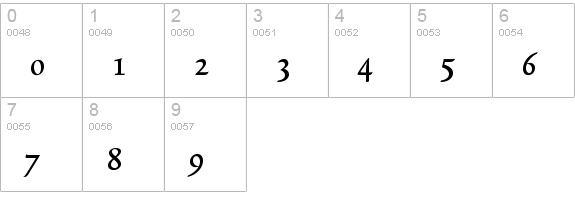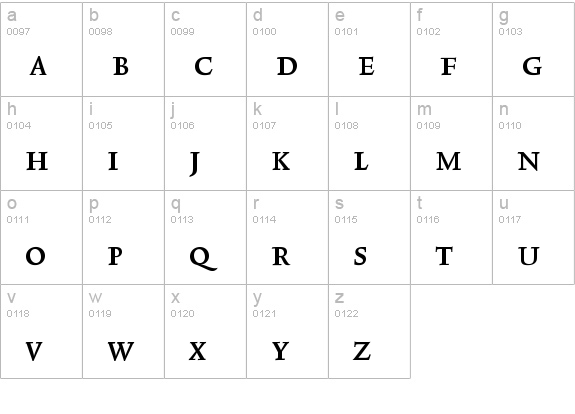
TriniteNo1-MediumCondensedExp is a sleek and modern font that is perfect for adding a touch of sophistication and elegance to any design project. This font features a condensed and slightly elongated style that exudes professionalism and refinement. With its clean lines and balanced proportions, TriniteNo1-MediumCondensedExp is versatile and can be used in a wide range of applications. Whether you're designing a logo, creating a website, or working on a print project, this font will effortlessly elevate your design to the next level. One of the standout features of TriniteNo1-MediumCondensedExp is its readability. The medium weight ensures that the characters are clear and legible, even at smaller sizes. This makes it an ideal choice for body text in magazines, brochures, and other printed materials. In addition to its aesthetic appeal, TriniteNo1-MediumCondensedExp is also available for free. That's right, you can download this stunning font without any cost at FontsMarket.com. This means that you can enhance your designs without breaking the bank. So don't miss out on this incredible opportunity to elevate your design game with TriniteNo1-MediumCondensedExp. Download it for free at FontsMarket.com and let your creativity soar.